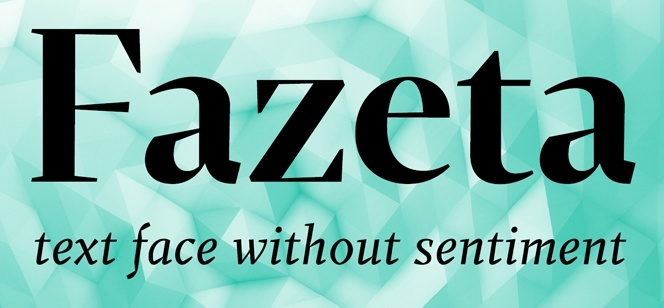
Fazeta typeface
Fazeta typeface is a modern serif font family that is based on the Antiqua or Venetian types. It is inspired by the works of the Czechoslovakian type masters of the 1960’s that created some land mark typefaces. Of course, being a modern typeface family, Fazeta is much more dynamic than its predecessors lacking the uniform thickness of the strokes. The designer of the font employed a wide range of techniques to achieve a lively and sharp appearance such as asymmetrical arches, expanded vertical strokes, very interesting stable serifs, etc. As a result we have a very rational and yet identical typeface family that is perfect for projects where you want to add more emotions and personality flavor.
Fazeta is a font family with great merit but there is one prominent feature – the use of the optical sections. It is classified into 3 variants depending on the optical size – the low contrast caption (size 6-9 pt), medium contrast text (10 pt) and the high contrast display (above 20 pt). Each version comes in 5 weights from Light to Black with their respective Italics. Overall, the typeface family comprises the astonishing 30 fonts, each containing 1140 glyphs! And there are even more extras supplied – alternative glyphs, fractions, small capitals, digits, symbols, indexes, arrows, etc.
Fazeta typeface is a brainchild of the Slovak type designer Andrej Dieneš and released by his type foundry Adtypo. This independent foundry has its focus on adding ingenious touch to traditional type forms employing vast range of OpenType features and offering extensive language support.